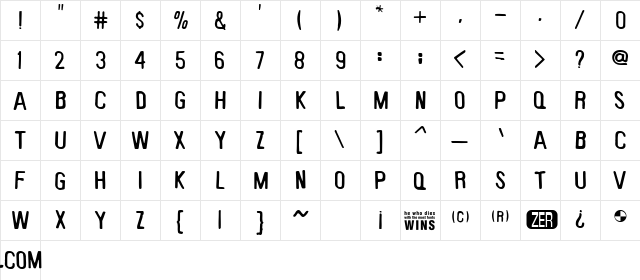
Keyboard Plaque Regular
Design Context for Keyboard Plaque Typeface
Keyboard Plaque is a composed and adaptable typeface that performs quietly and consistently across a wide range of design contexts.